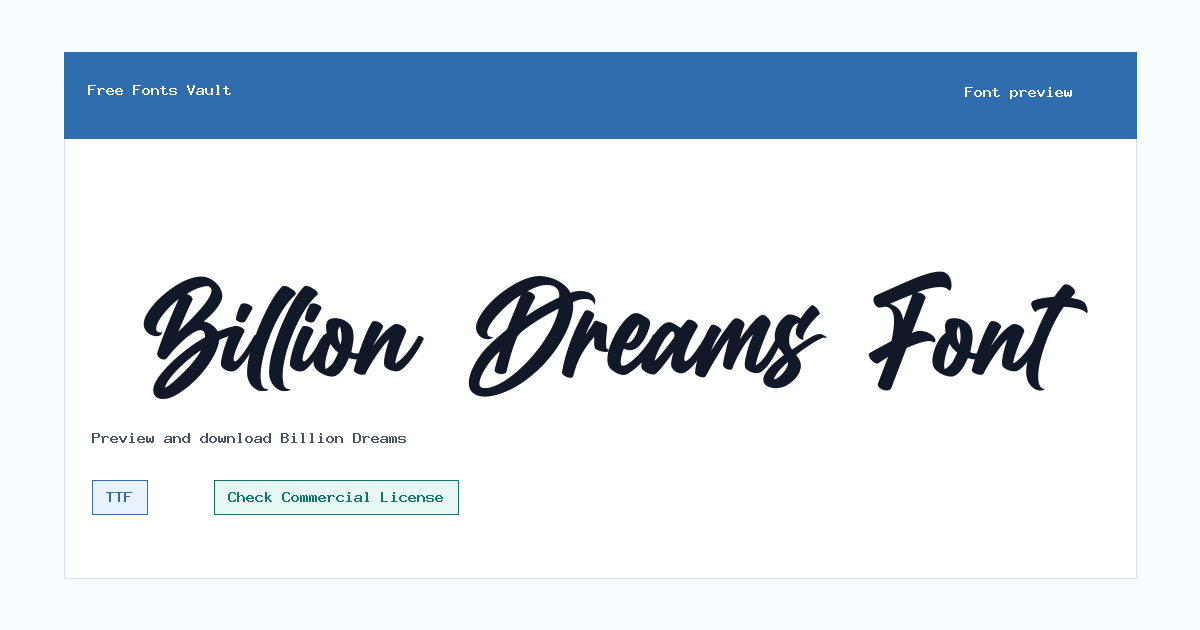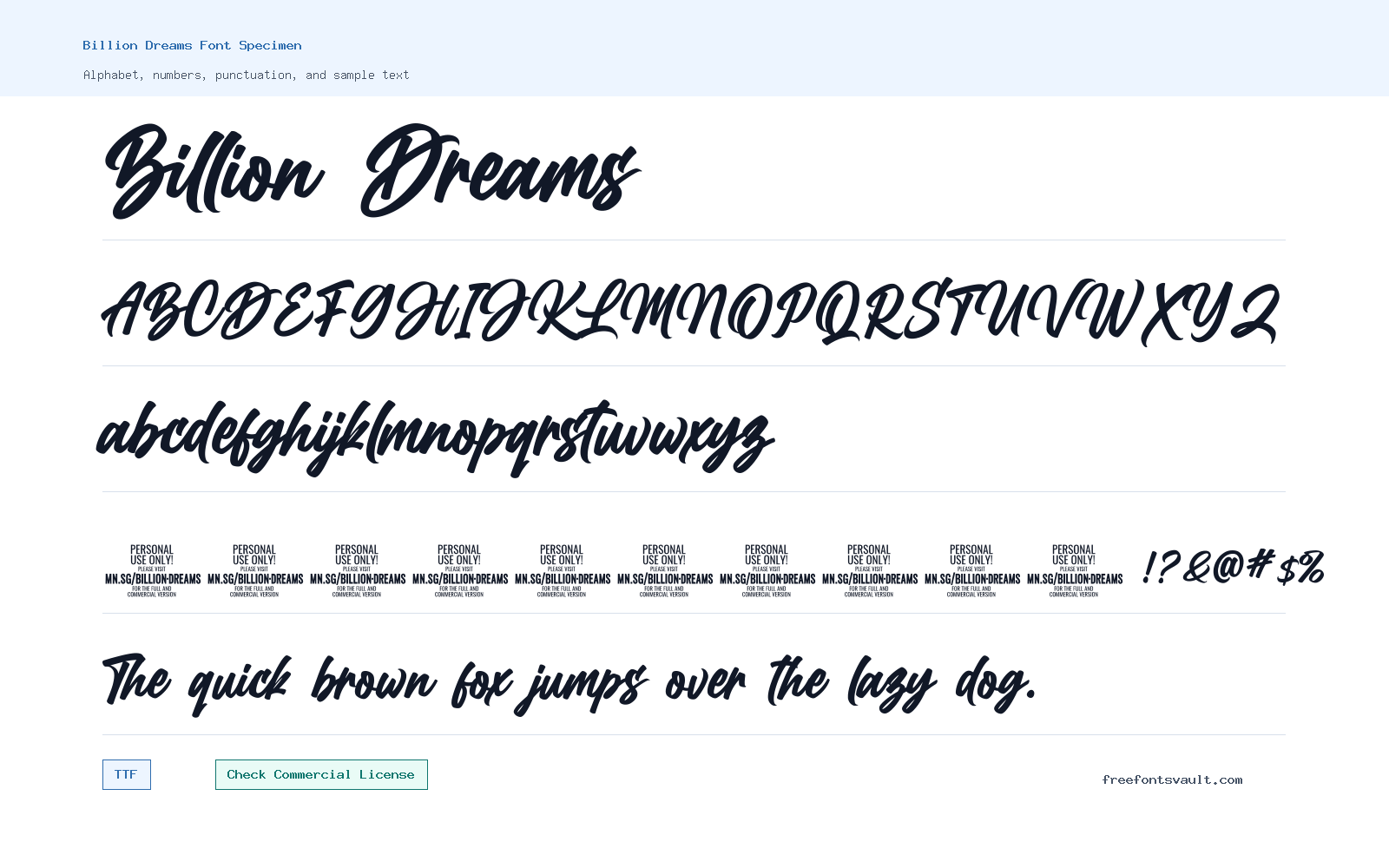
Billion Dreams
- Designer Rangga Singgih Subekti
- Foundry Subectype Studio
Billion Dreams font.
Billion Dreams is a decorative display font with a soft, expressive feel suited to short words, names, headings, and preview text where style matters more than long-form reading.
About Billion Dreams Font
Billion Dreams works best as a display face rather than a body-text font. Its name and presentation point toward a decorative, dreamlike style, so it is most useful when you want a title, logo-style wordmark, invitation line, quote, or social graphic to feel more personal and expressive. Keep the text short in the preview tool so you can judge spacing, letter connections, and how the capitals sit with lowercase letters.
Because Billion Dreams has a decorative name and script-like personality, preview it with the exact names, initials, or phrases you plan to use. Some connected or ornamental fonts look beautiful in a single word but become harder to scan when a phrase is too long.
- Decorative display style suited to short, expressive text
- Invitations, greeting cards, quotes, and romantic or personal design accents
- Headings, name treatments, social posts, and logo-style mockups
Billion Dreams is credited to Rangga Singgih Subekti, with Subectype Studio listed as the foundry.
Use Billion Dreams for short display text and check every word in the preview before downloading. Avoid relying on it for long paragraphs, small captions, or dense layouts. For a balanced design, pair it with a plain sans serif or readable serif and leave enough spacing around the decorative text. For invitations, quotes, and packaging mockups, pair it with a plain text font so the decorative style stays special rather than overwhelming the layout.
What is Billion Dreams best used for?
It is best for short decorative text such as names, titles, invitations, quotes, and social graphics. It is not a good choice for long paragraphs.
Who designed Billion Dreams?
The font is credited to Rangga Singgih Subekti, with Subectype Studio listed as the foundry.
Should I use Billion Dreams for long text?
No. Keep it for names, short headings, signatures, and accent words where the decorative strokes can breathe.